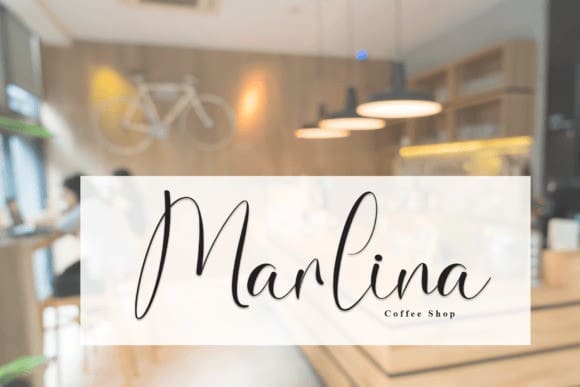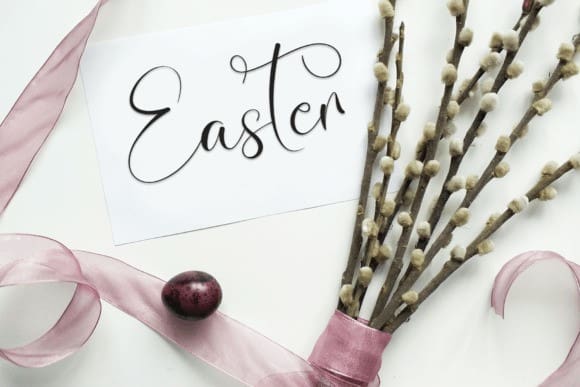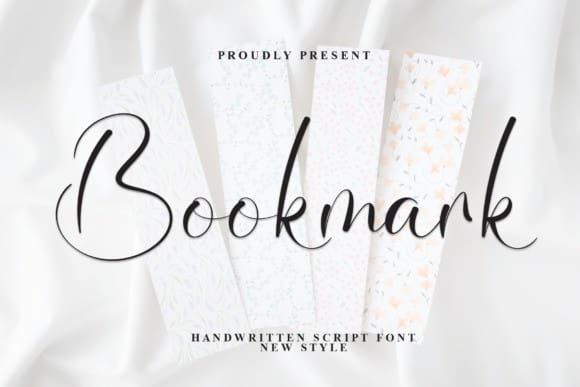
Bookmark Script Font
Bookmark Script Font is a stylish and incredibly elegant script font. It looks stunning on wedding invitations, thank you cards, quotes, greeting cards, logos, business cards and every other design which needs a handwritten touch.